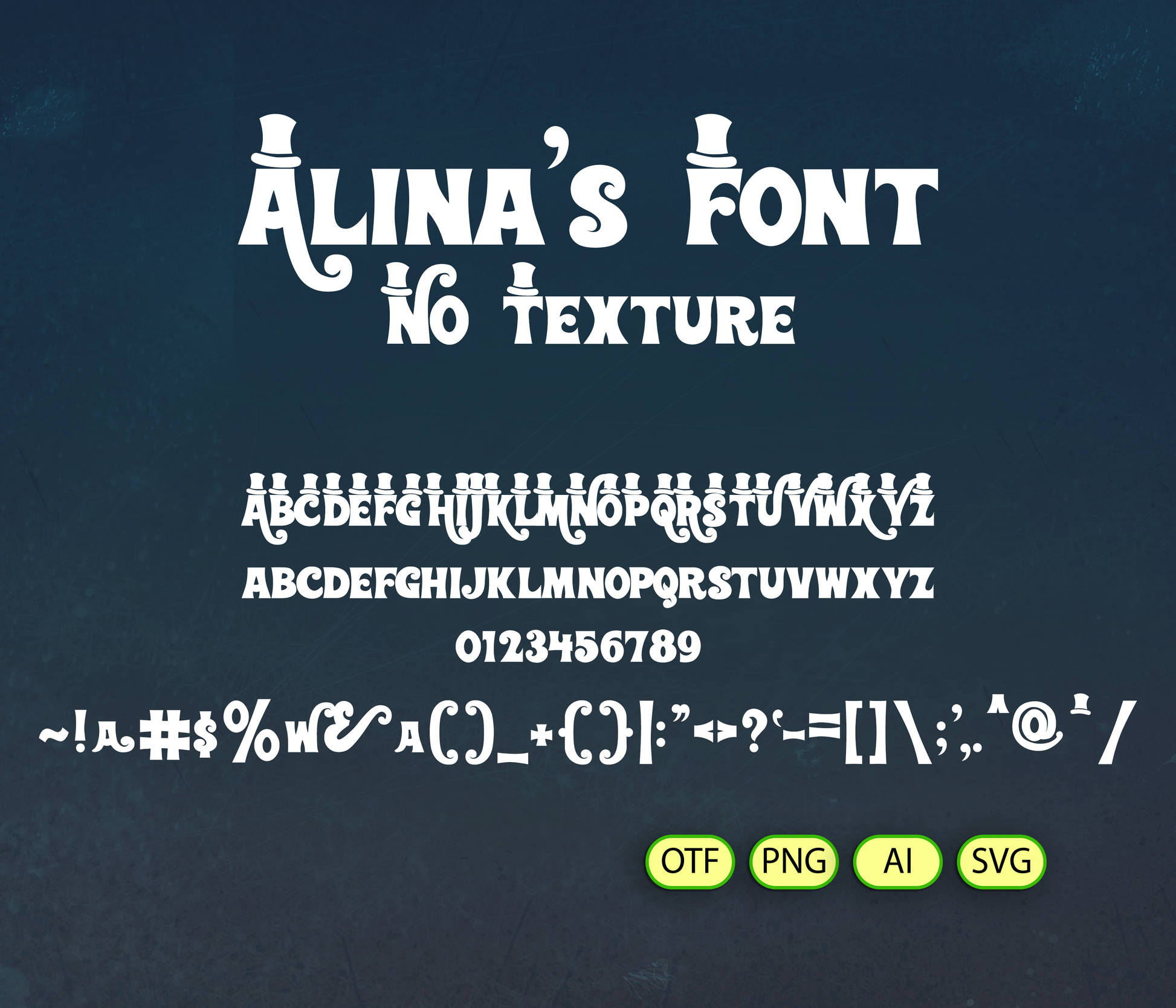
Classic Whimsical Confectioner Font Textured
Classic Whimsical Confectioner Font Textured: A Digital Fantasy Typeface
Introducing the Classic Whimsical Confectioner Textured Font—your golden ticket to a world of pure imagination, right at your fingertips! Inspired by the sweet whimsy of a magical candy factory, this digital typeface is crafted to sprinkle a dash of magic onto any project you conjure. Whether you're creating delightful designs for candy wrappers, whimsical birthday invitations, or magical cake toppers, this font is your companion in crafting creations as enchanting as a trip to a fantastical confectionery world.
Each letter is textured with a touch of wonder, ready to dance across the page in a parade of playful peculiarity. It's a font that's as delightful and unpredictable as the whimsical confectioner himself, filled with the promise of adventure and a hint of the extraordinary.